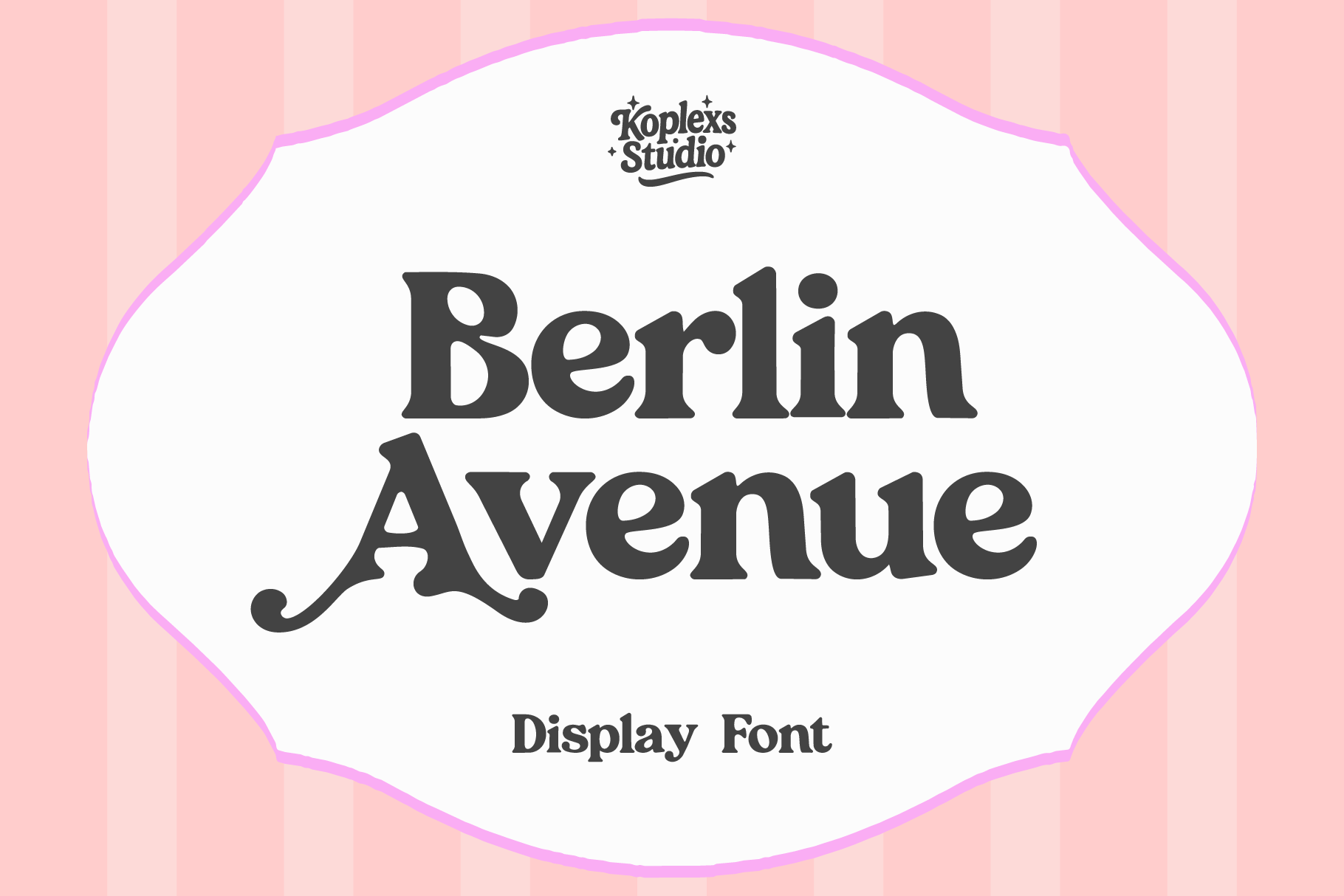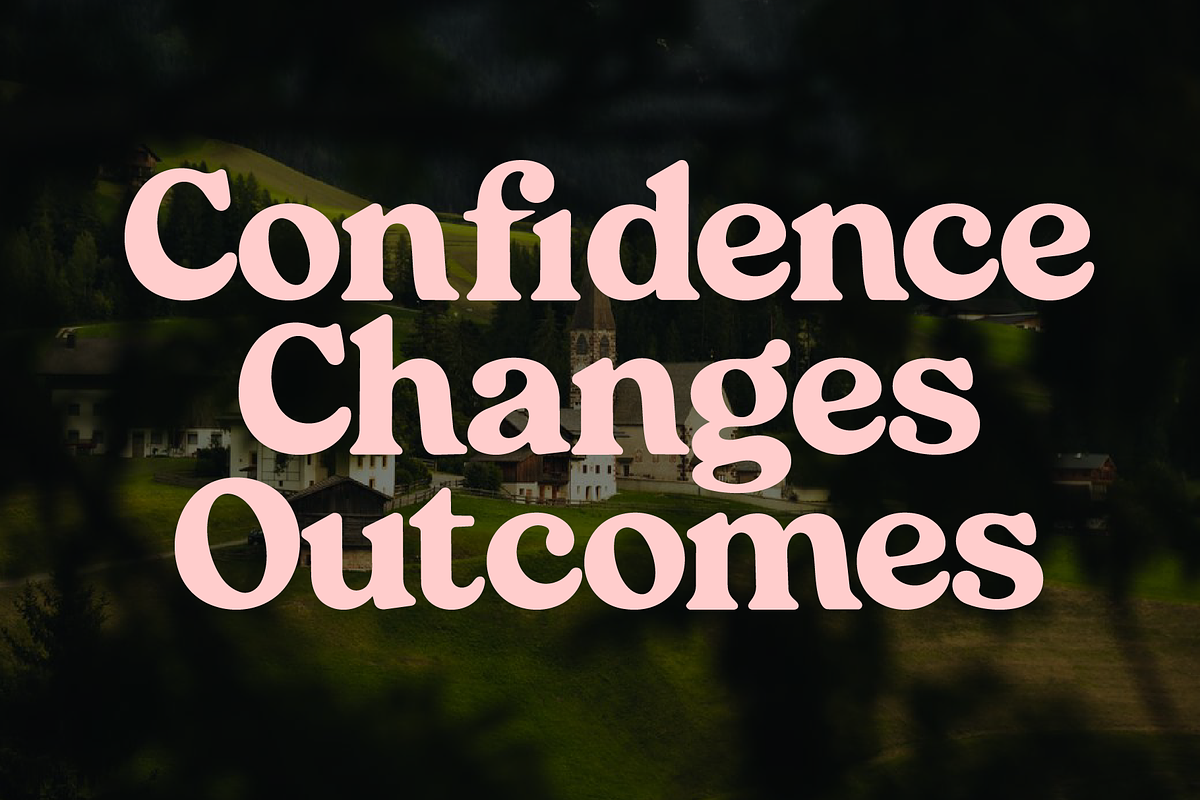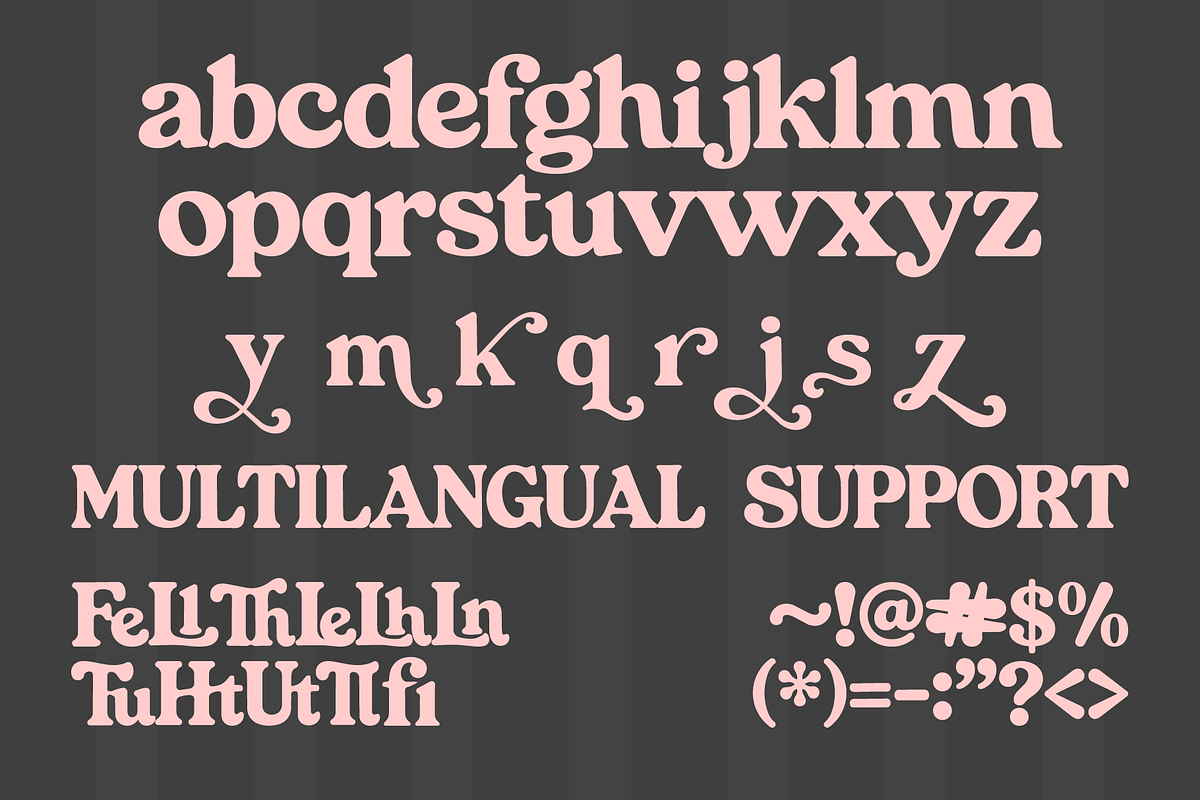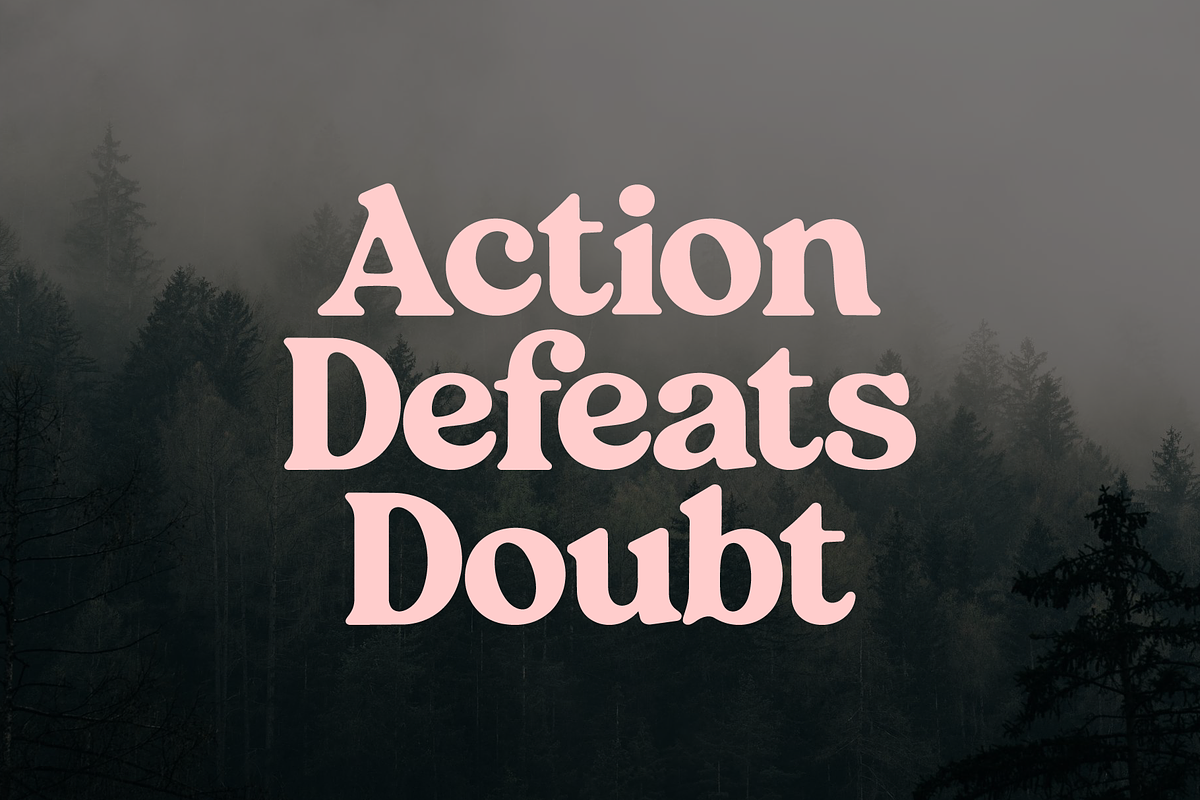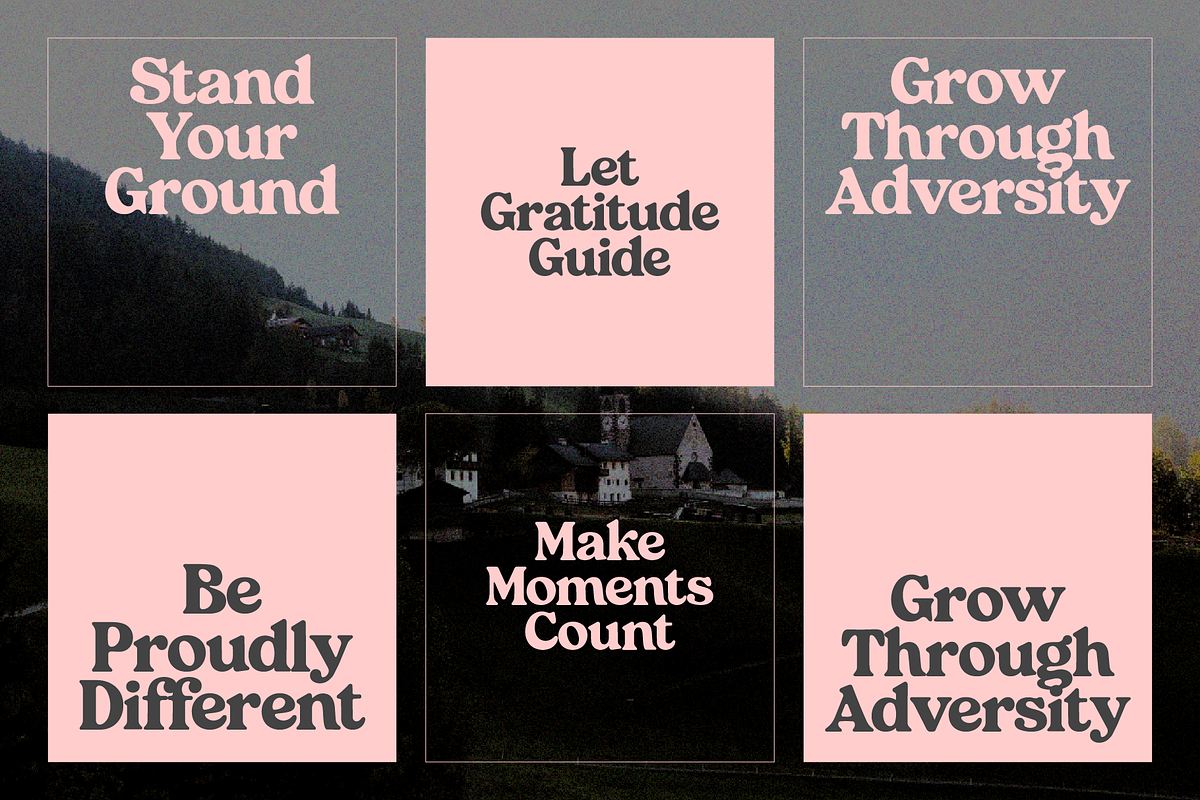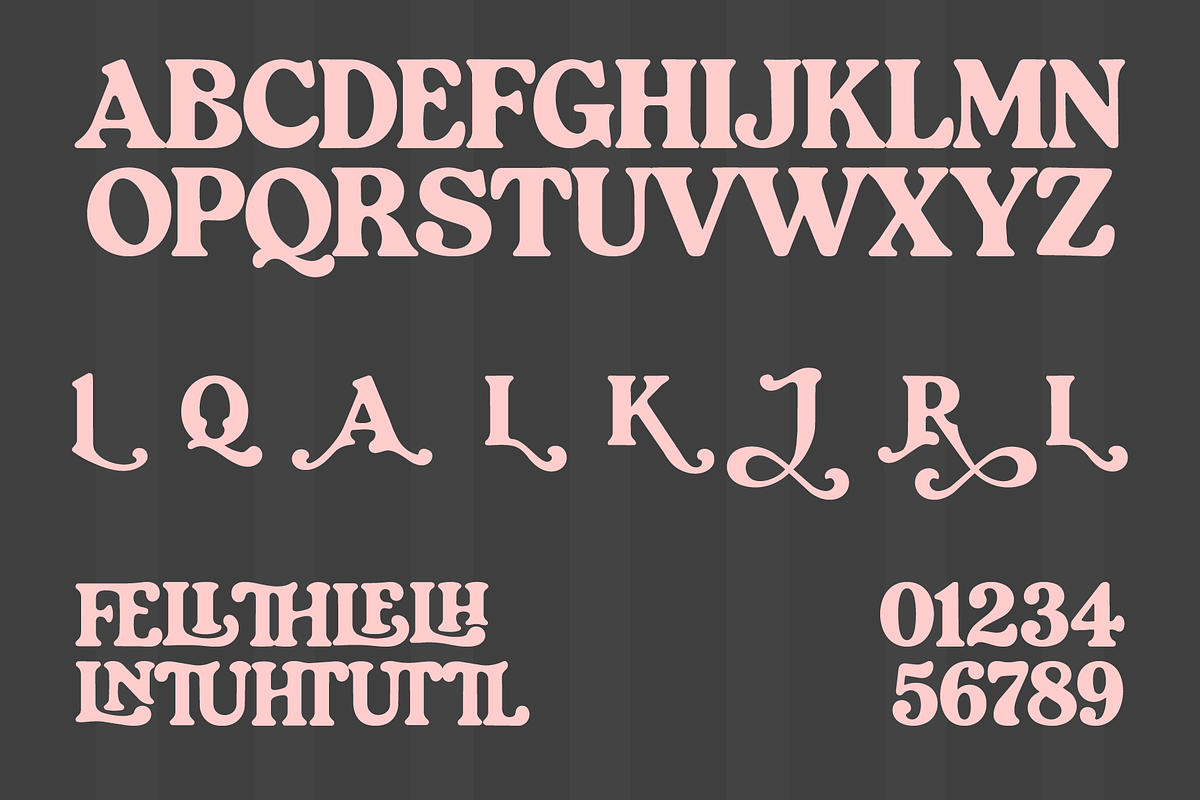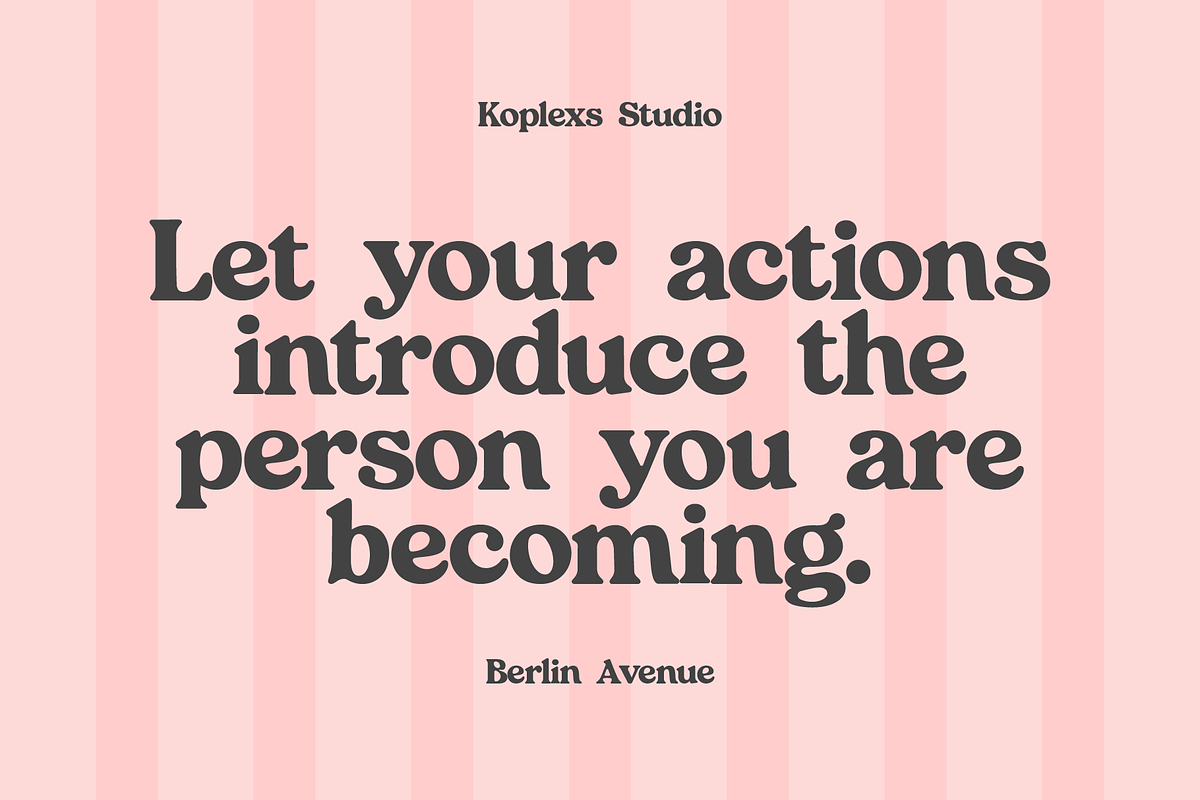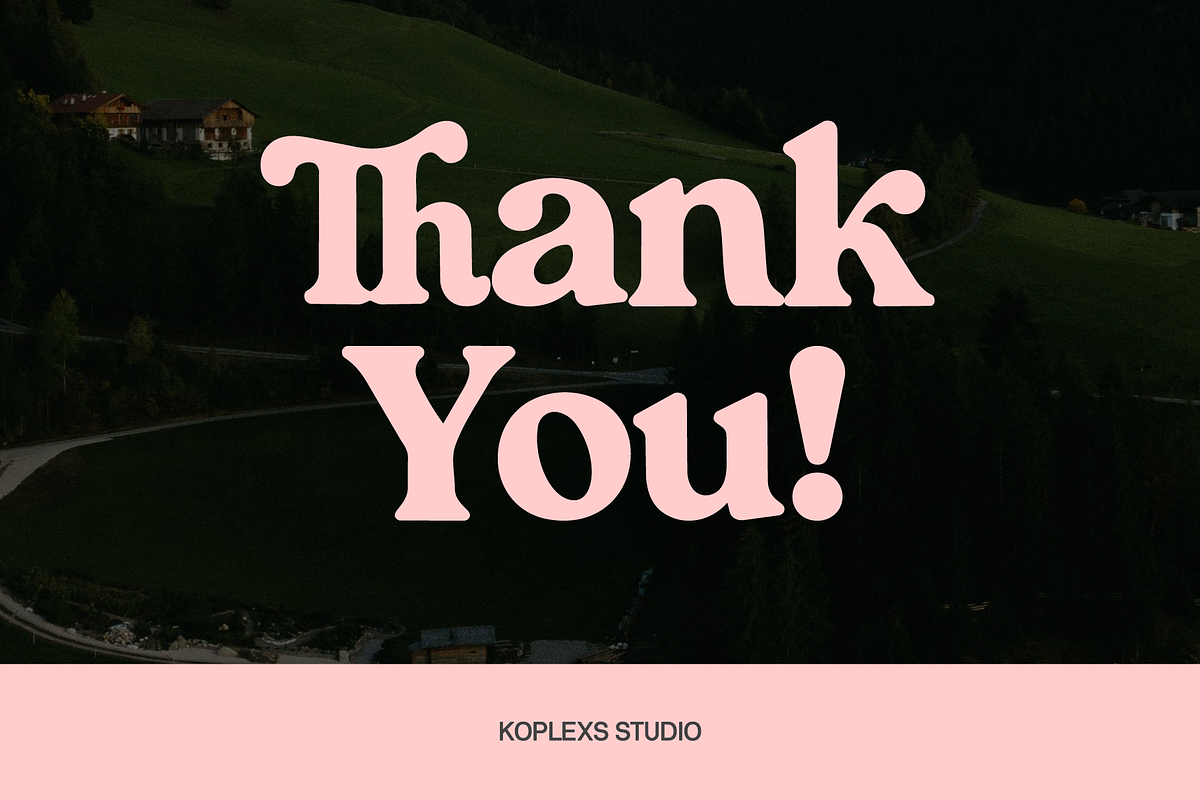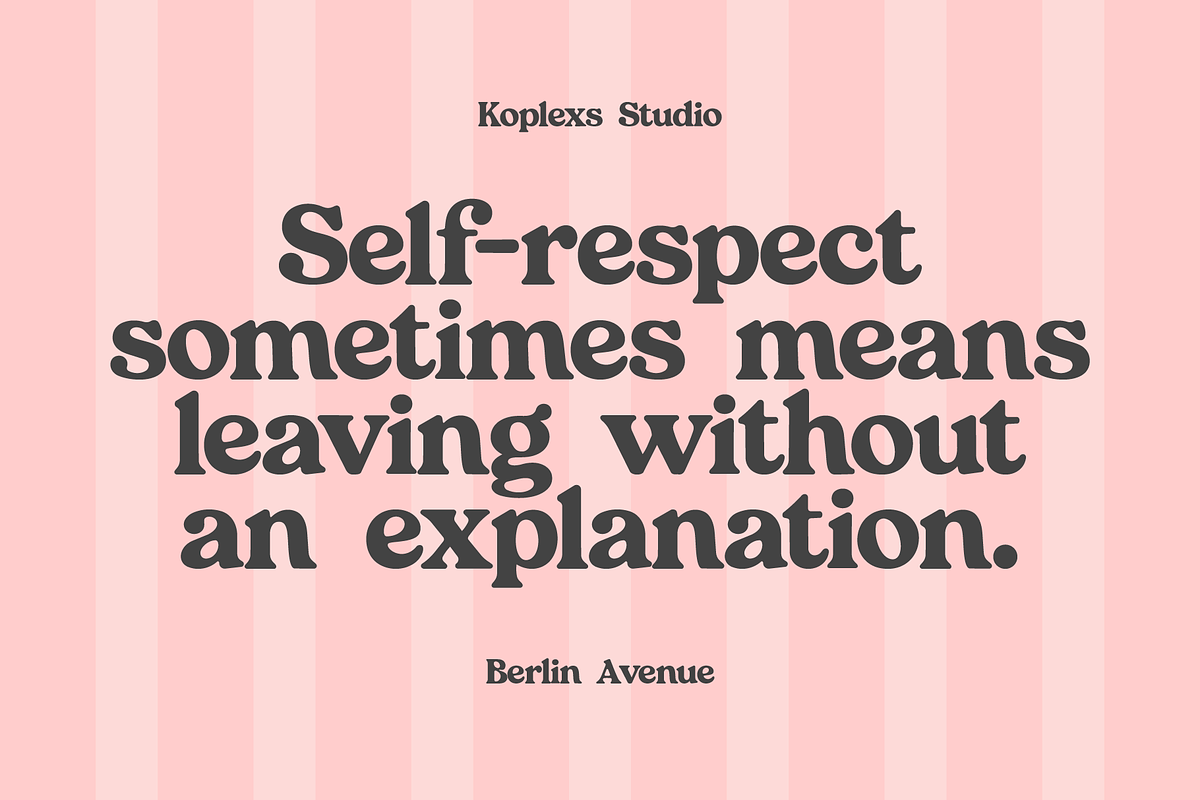
Berlin Avenue | Retro Serif Font
Berlin Avenue Font | Retro Serif Display Typeface
Berlin Avenue is a retro serif display font featuring chunky letterforms, smooth curves, and playful decorative details. Its nostalgic character is inspired by classic editorial typography, while its clean finish keeps your designs fresh, stylish, and easy to recognize.
Created for attention-grabbing text, Berlin Avenue makes headlines, brand names, and short phrases feel more expressive. It is a great choice for designers and creative businesses looking for typography that feels friendly, confident, and memorable.
Ligatures & Alternate Fitures
Standard & Multilingual glyphs
Fonts include multilingual support
Perfect For :
Logos and brand identities
Product packaging and labels
Posters and advertising
Editorial headlines
Magazine and book covers
Apparel and merchandise
Invitations and greeting cards
Website banners
Café, bakery, fashion, and beauty branding
Whether you are building a nostalgic brand or adding personality to a modern project, Berlin Avenue Font helps your message stand out without losing its friendly charm.